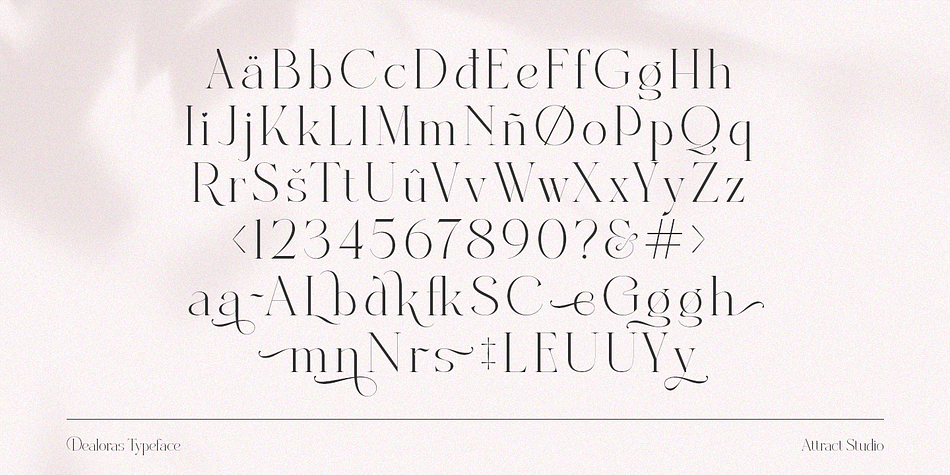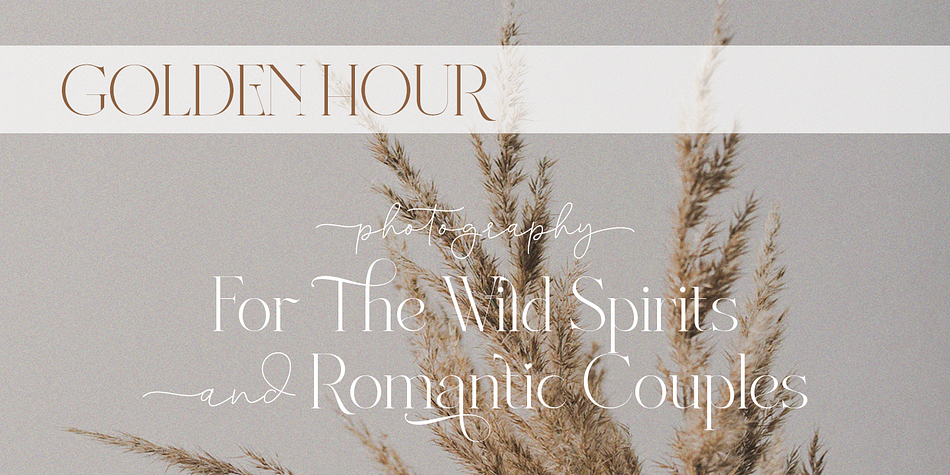
Dealoras
Dealoras is a display serif and hand drawn font family. This typeface has three styles and was published by Attract Studio.
Dealoras is a duo font that is all geometric typeface with simplicity and directness that stands out with its modern minimalist style and clean feel.
There are also Dealoras Outline and Dealoras Signature to help you mix and match to match your creative work in harmony. perfect for magazine pictures, for wedding invitations, for branding, poster design and more.